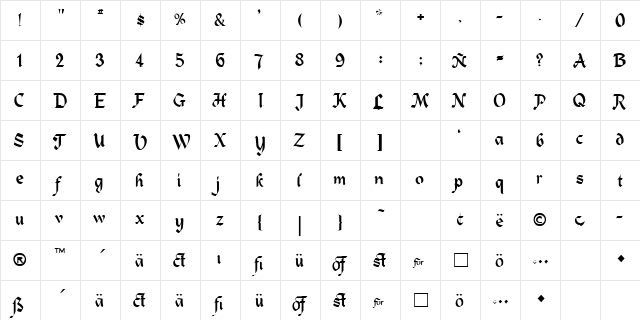
COBBLEA Regular
Design Context for COBBLEA Typeface
COBBLEA is a composed and adaptable typeface that performs quietly and consistently across a wide range of design contexts.